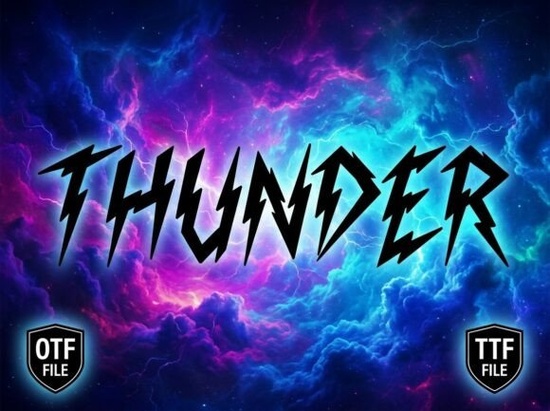
Thunder Font is a bold and dynamic typeface that brings a sense of intensity and energy to any design project. Whether you're working on a music album cover, a sports logo, or a custom t-shirt, this font offers a unique visual impact that stands out. Its jagged lines and sharp angles create a powerful aesthetic that can elevate your work in a variety of creative fields.
If you're looking for a font that breaks the rules and adds a raw edge to your designs, Thunder Font could be the perfect fit. It’s especially well-suited for projects that require a strong, attention-grabbing presence. The font’s aggressive style works well with complex backgrounds, making it a versatile choice for both digital and print applications.
Thunder Font is ideal for a range of applications. Music producers and graphic designers often use it for rock and metal album covers, where its aggressive style matches the genre's intensity. Extreme sports teams may find it useful for headers and branding materials that need to convey power and energy. Gaming streamers can use it for overlays that grab viewers' attention, while custom apparel creators might incorporate it into slogans or logos for motorcycle gear and streetwear.
The font’s design elements, such as its jagged lightning-like shapes and shattered glass textures, make it visually striking without sacrificing readability. Even when used on busy or colorful backgrounds, Thunder maintains clarity, ensuring that the message remains clear and impactful. This makes it a reliable choice for both simple and complex design layouts.
When working with Thunder Font, consider how it interacts with other design elements. Pairing it with simpler fonts or solid colors can help balance the overall composition. Experimenting with different sizes and placements can also enhance its visual appeal. Testing the font in various contexts will help you understand its full potential and how it can serve your creative goals.
For those new to using bold display fonts, it's helpful to start with a few key projects where the font can make a noticeable difference. Whether it's a personal logo, a social media graphic, or a print piece, Thunder Font can add a distinctive touch that sets your work apart. As you become more familiar with its characteristics, you'll likely find more ways to integrate it into your creative process.
Keep in mind that while Thunder Font is highly expressive, it may not be suitable for every project. Its aggressive style works best when the design context supports it. Always consider the audience and the purpose of the design before choosing a font. This thoughtful approach ensures that your work remains both effective and visually compelling.
Try using Thunder Font in a few different projects to see how it performs. You might be surprised by how much it can enhance your designs. Whether you're a professional designer or a hobbyist, this font offers a fresh and powerful way to express your creative ideas.
- Test Thunder Font on different background types to see its versatility.
- Pair it with simpler fonts to balance the overall design.
- Consider the context of each project before using the font.